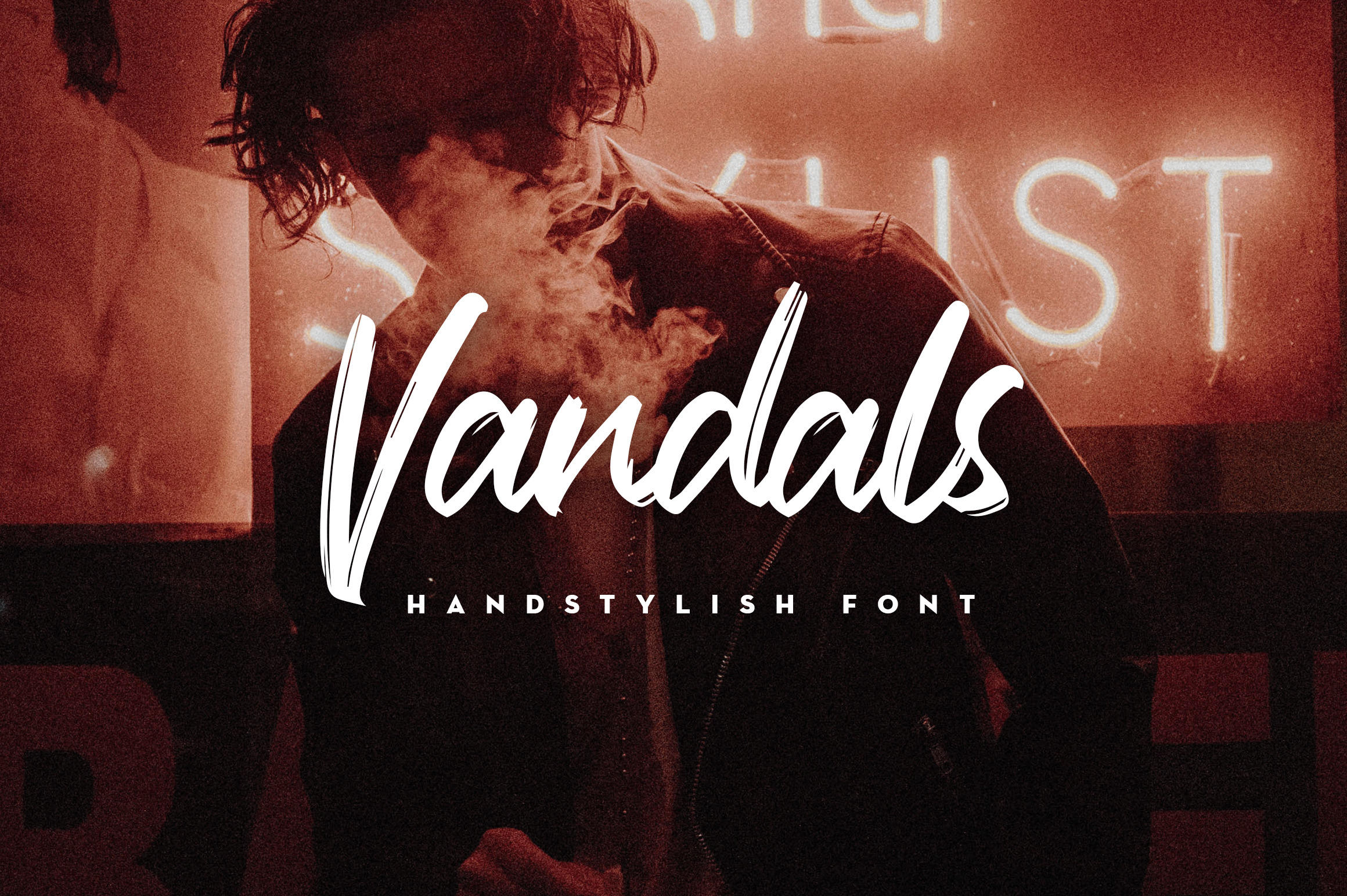
Vandals Handstylish Font
Say hello for Vandals Handstylish Font! Best match for logos, invites, titles, prints & other creative process possibilities.
Create a extraordinary handstylish results by using Vandals Handstylish Font!